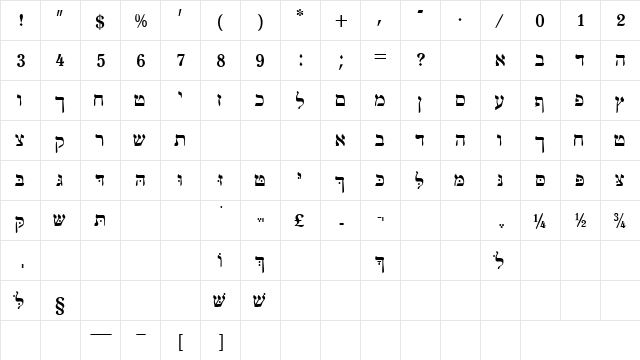
SharonSSK Regular
Design Context for SharonSSK Typeface
SharonSSK offers clean, dependable letterforms without strong stylistic allegiance, making it a practical choice for designers who need flexibility.